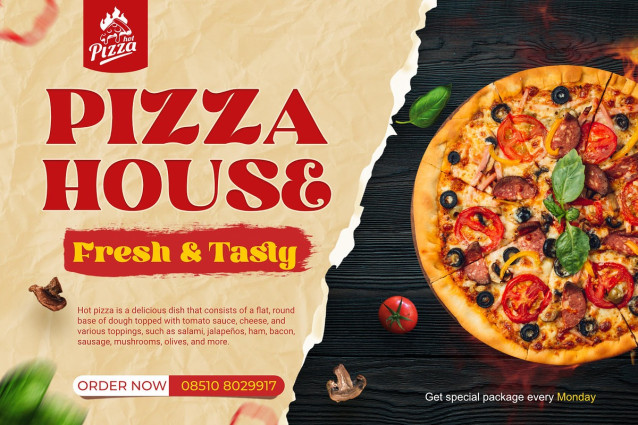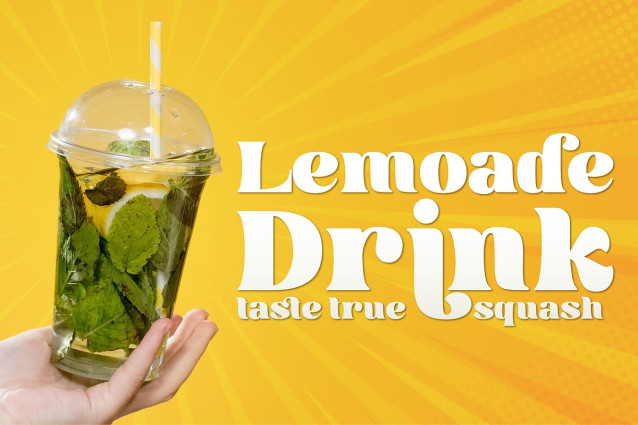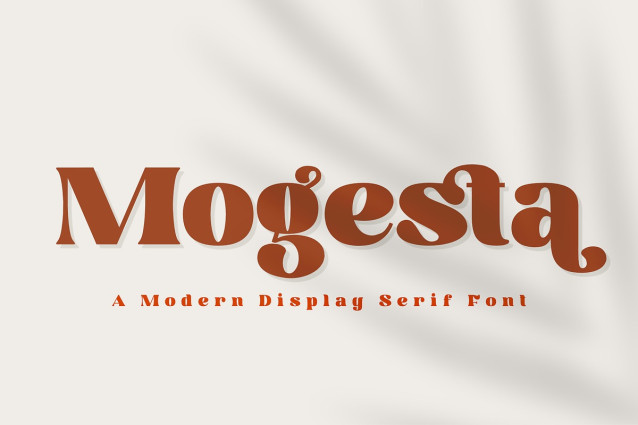
Mogesta Font
Mogesta Font, a modern display serif font that features unique alternates and ligatures that add sophistication and elegance to your texts. This font is great for fashion, branding, and logo design projects that require a bit of creativity and imagination. You can use Mogesta for logos, branding, posters, flyers, invitations, and more. Mogesta is easy to work with and versatile, giving your design a fresh and modern look. Download Mogesta today and discover its charm and sophistication.